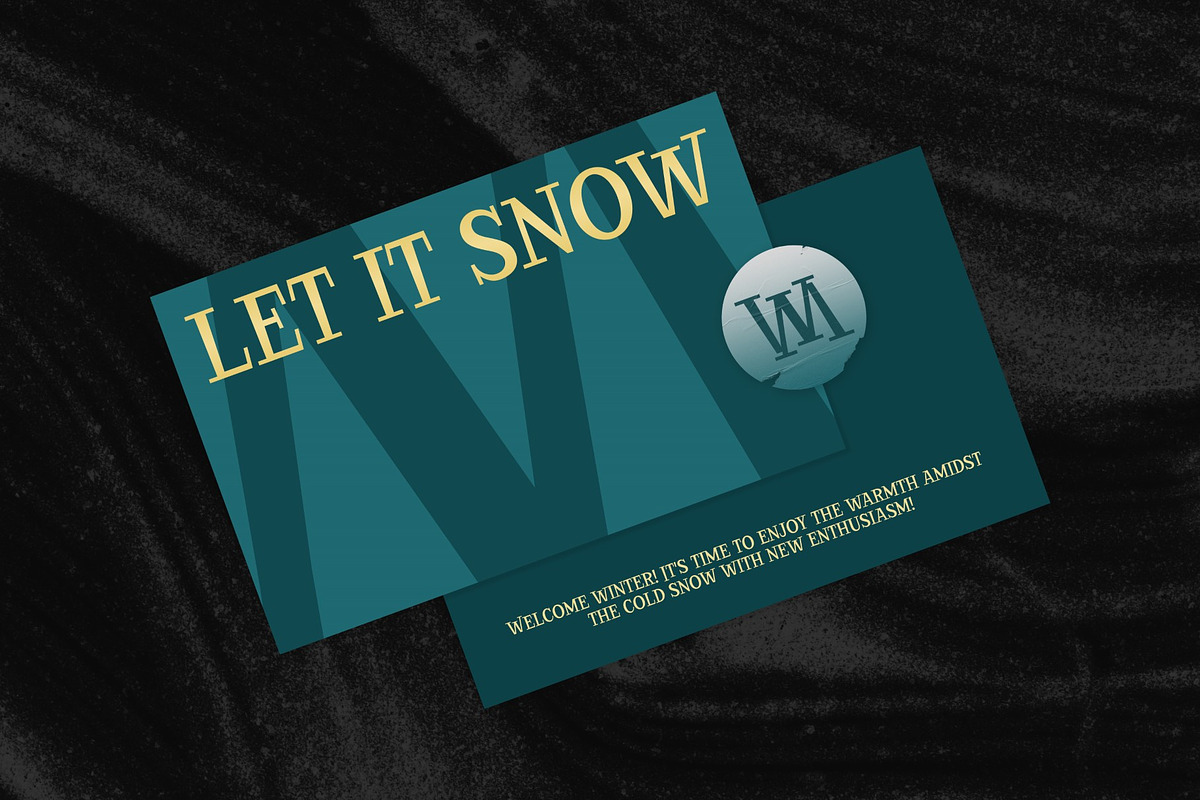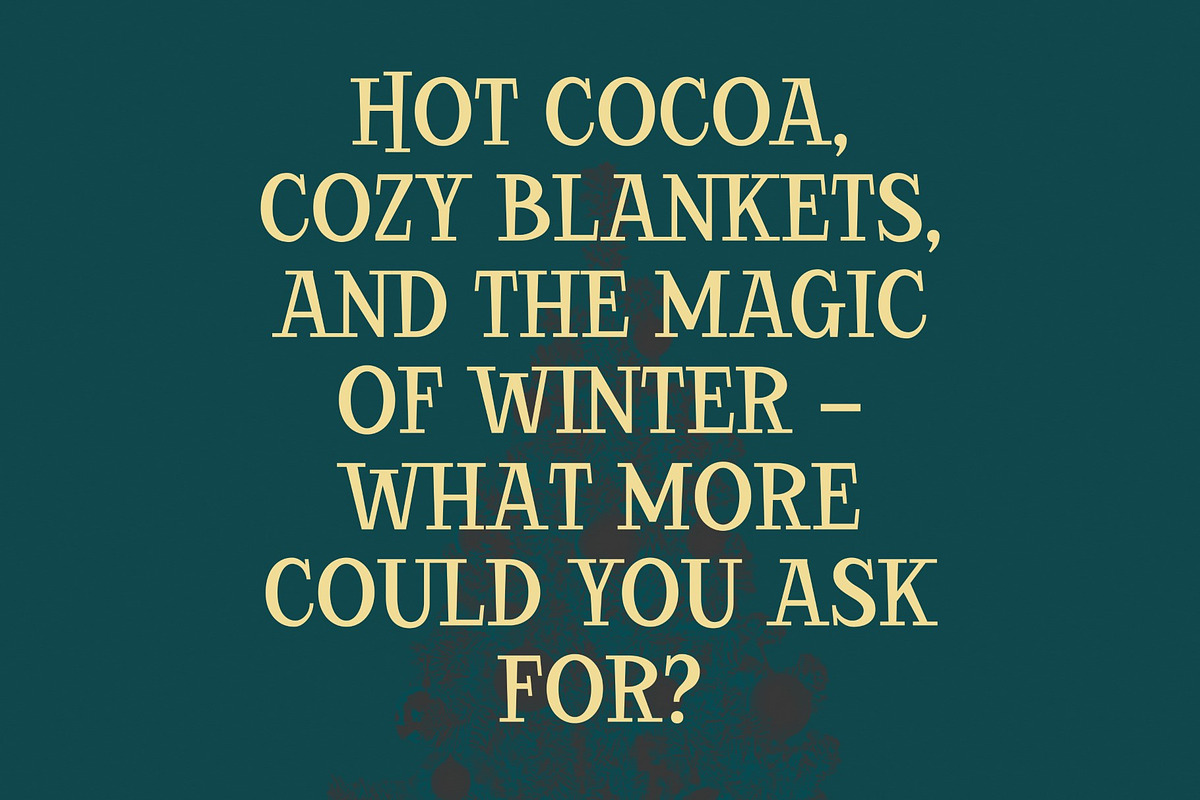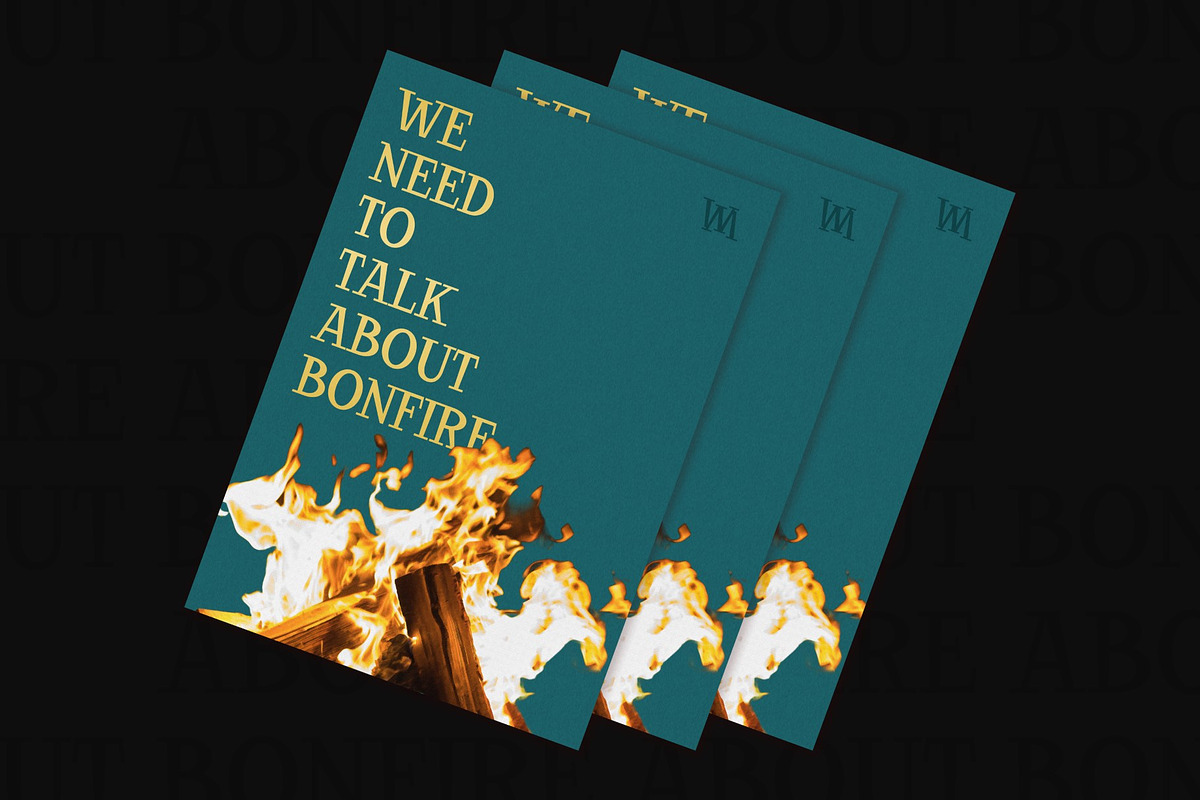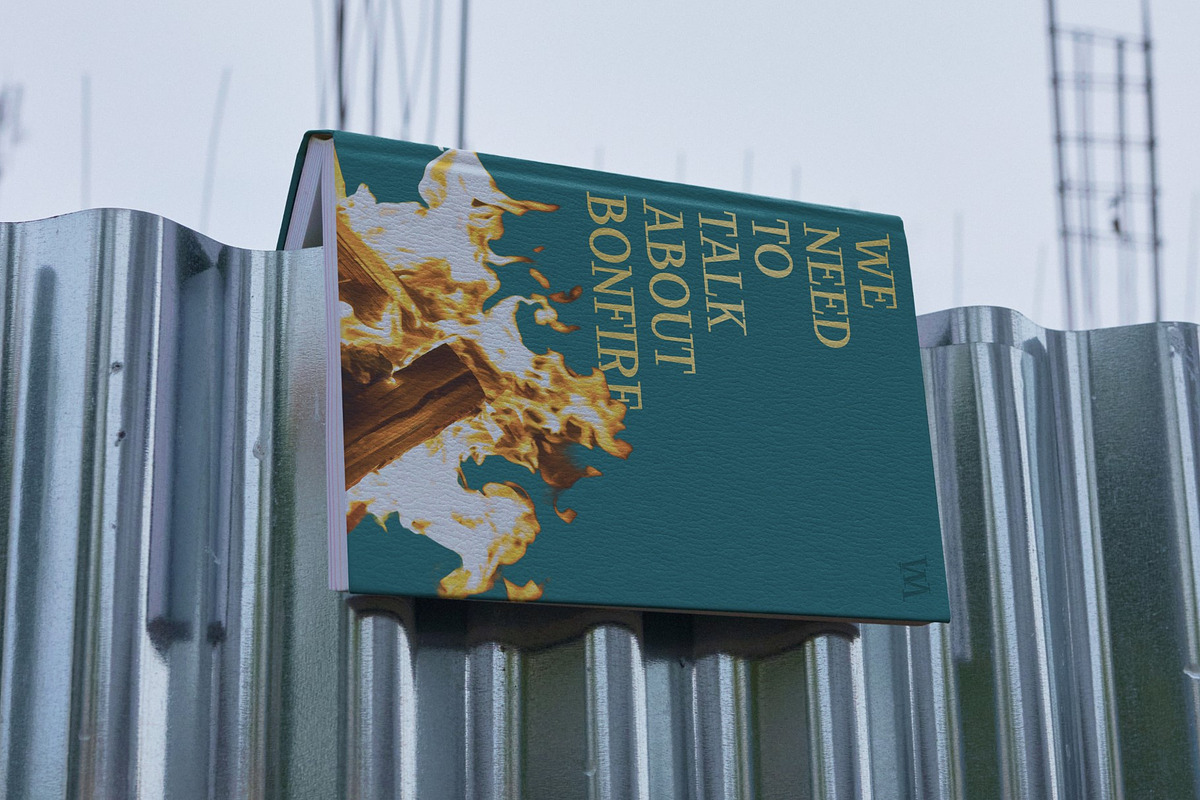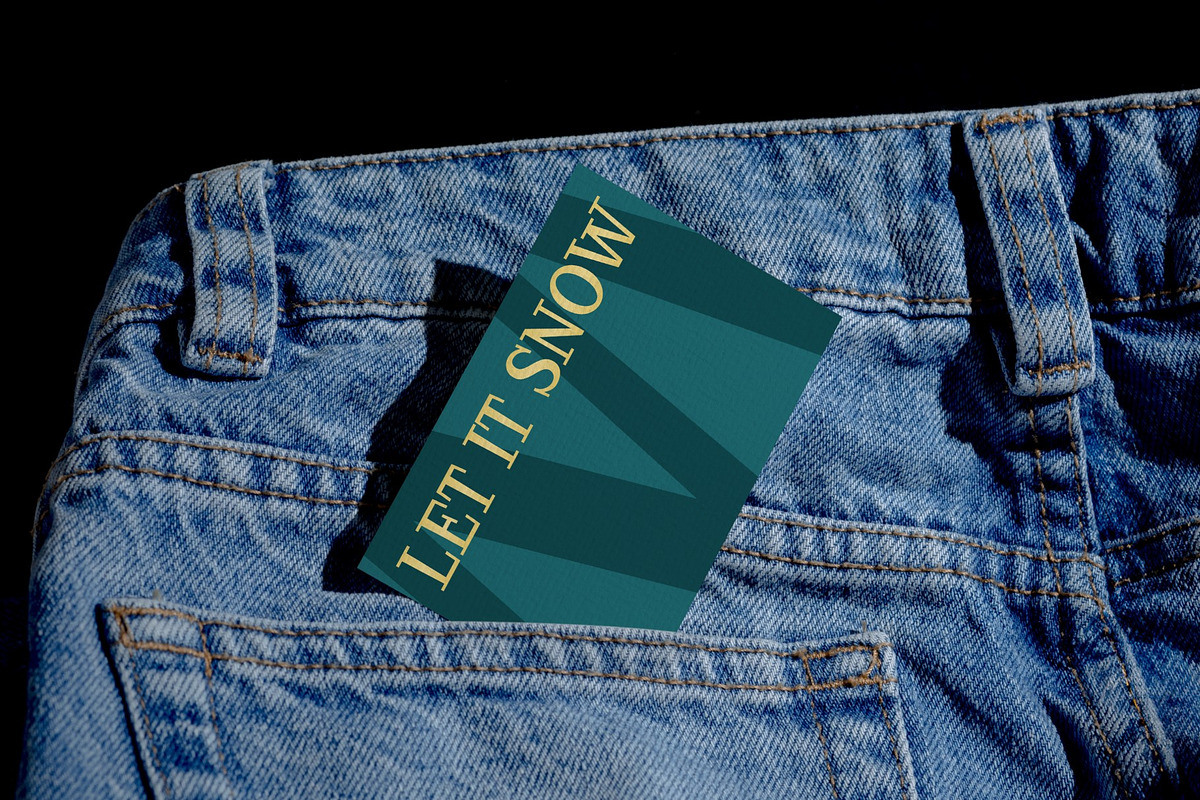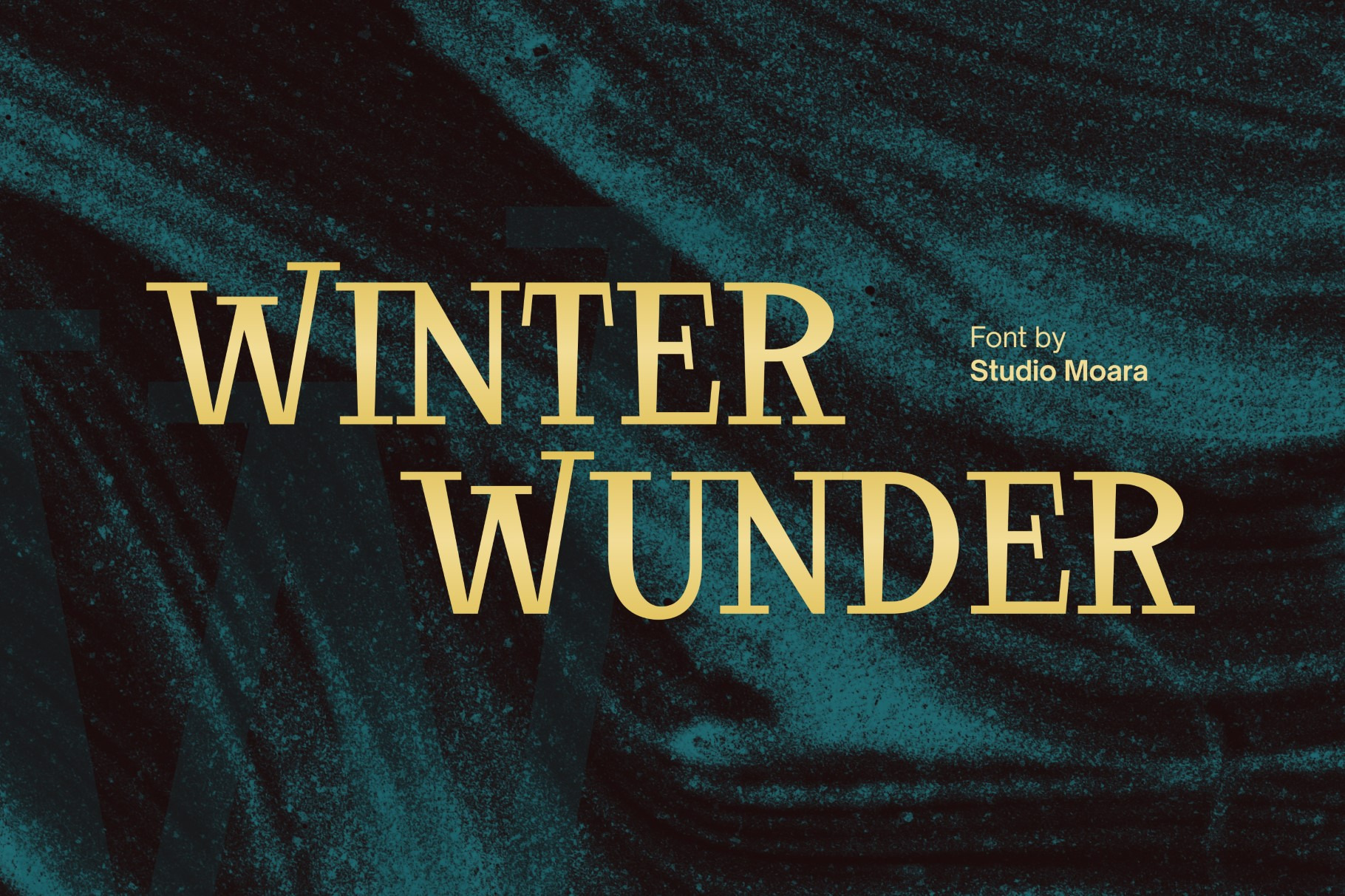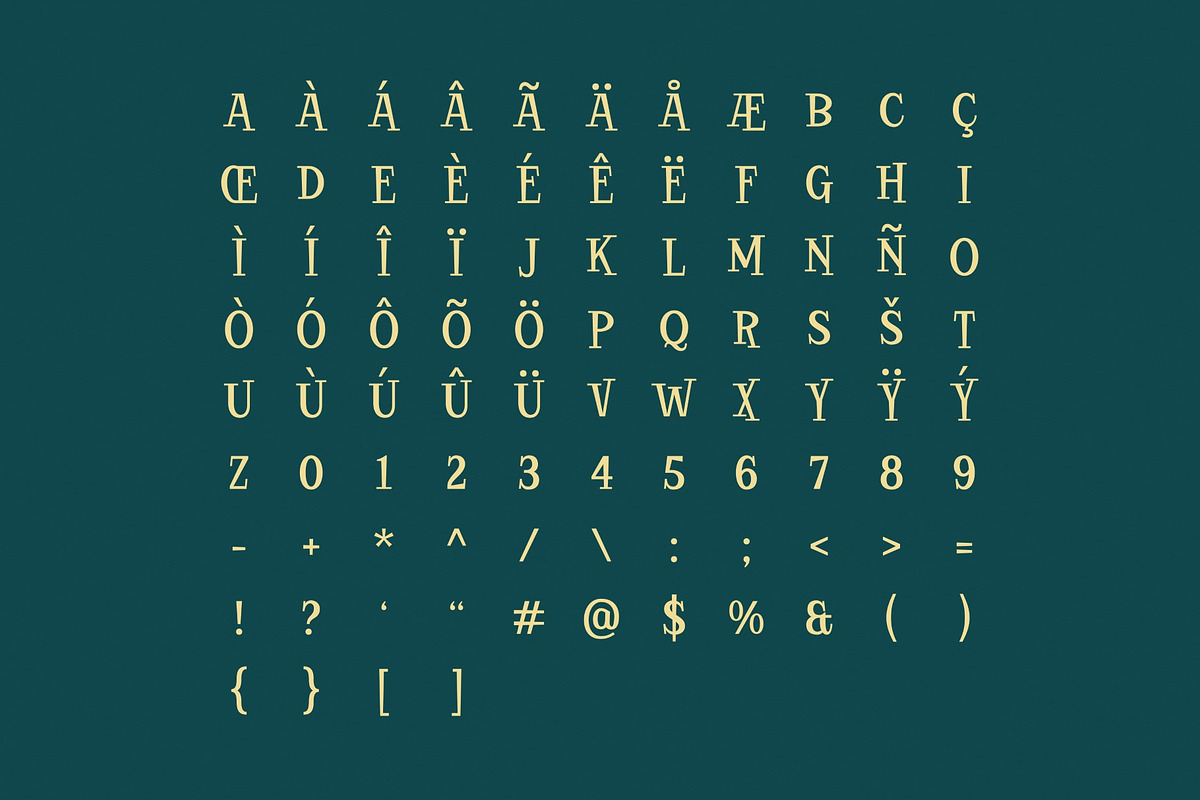
Winter Wunder - Christmas Serif Font
Transform your holiday projects into a winter wonderland with Winter Wunder, our Christmas Serif Font. This elegant and versatile typeface encapsulates the enchantment of the season, making it ideal for a wide range of design applications. Its timeless serifs and graceful curves lend sophistication to your greeting cards, invitations, and festive branding. Create a warm and inviting atmosphere, perfect for spreading joy and celebrating the magic of Christmas with the Winter Wunder Serif Font.